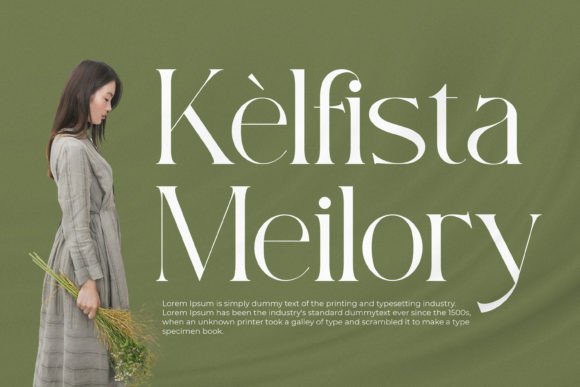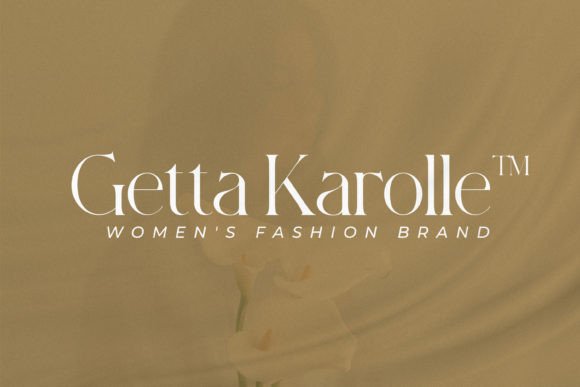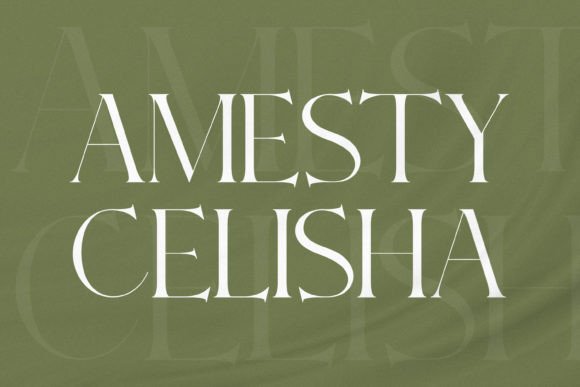
Introduction to Neoghy Font
Imagine you’re working on a high-end branding project, and you’re struggling to find the perfect font to convey your message. You’ve spent hours scrolling through design resources, only to end up with a font that feels generic and lacks the luxury touch you’re aiming for. This is where the Neoghy Font comes in – a modern and premium serif font designed to elevate your creative project to the next level.
As a designer, you know the importance of having high-quality design resources at your fingertips. The Neoghy Font is a valuable addition to any design library, offering a unique and sophisticated look that’s perfect for logos, branding projects, and more. With its transparent background and clean lines, this font is a versatile design tool that’s sure to impress.
Key Features of Neoghy Font
- High-quality, professional font suitable for creative projects, offering a unique and modern design.
Honest Review: Neoghy Font
I recently had the chance to work with the Neoghy Font, and I must say it’s a solid addition to any designer’s toolkit. ✨ Its clean lines and modern aesthetic make it perfect for a variety of creative projects, from digital designs to print materials.
⚠️ The font family is relatively small, with only a few styles available. This might limit its use in complex designs that require multiple font variations.
Overall, I’m impressed with the Neoghy Font. It’s a well-designed, high-quality font that’s perfect for a variety of creative projects. While it may have some limitations, its strengths far outweigh its weaknesses, making it a great addition to any designer’s library.